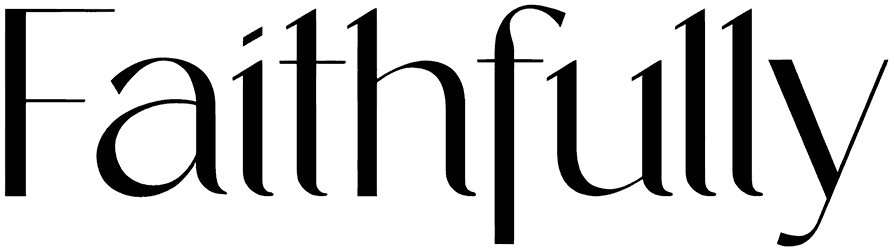
Faithfully Font
You should have plenty of projects that can be ideally completed with just a luxury font like Faithfully. There’s something so graceful about the good-looking style that makes you want to use it over and over again.
There’s a pretty good chance of seeing this modern font on websites, business cards, and labels belonging to brands such as those for scarves, lipsticks, hair creams, nail polishes, or more. Frankly, this fetching design won’t let you down in any of your upscale designs.